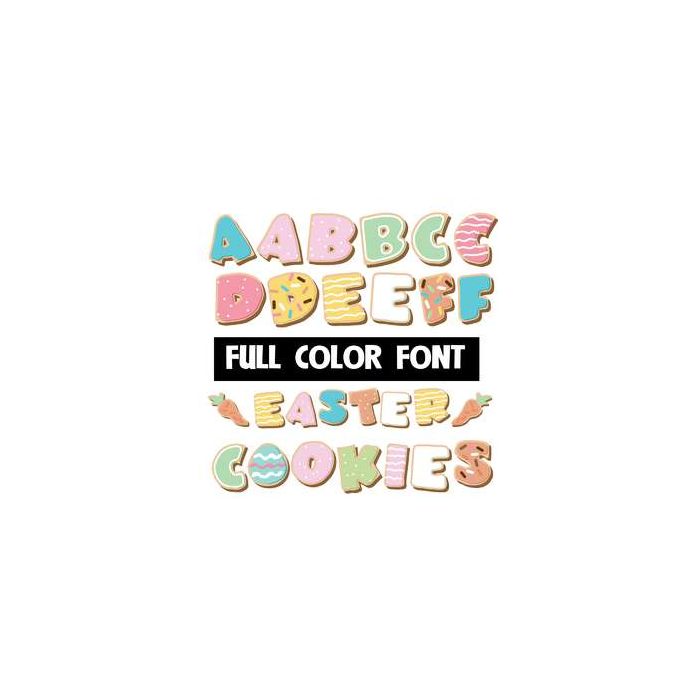
This full-color font features Easter-colored cookies with an "egg" for the lowercase "o". There are two carrots you can access by typing rectangle brackets.